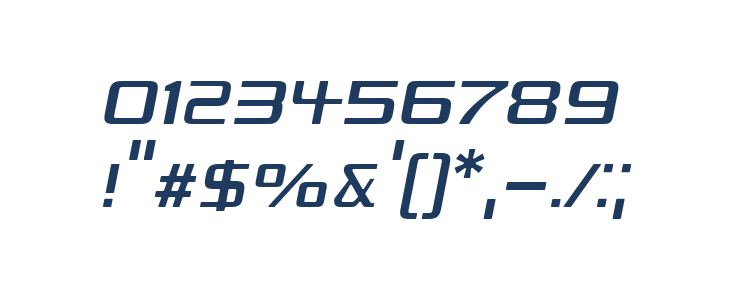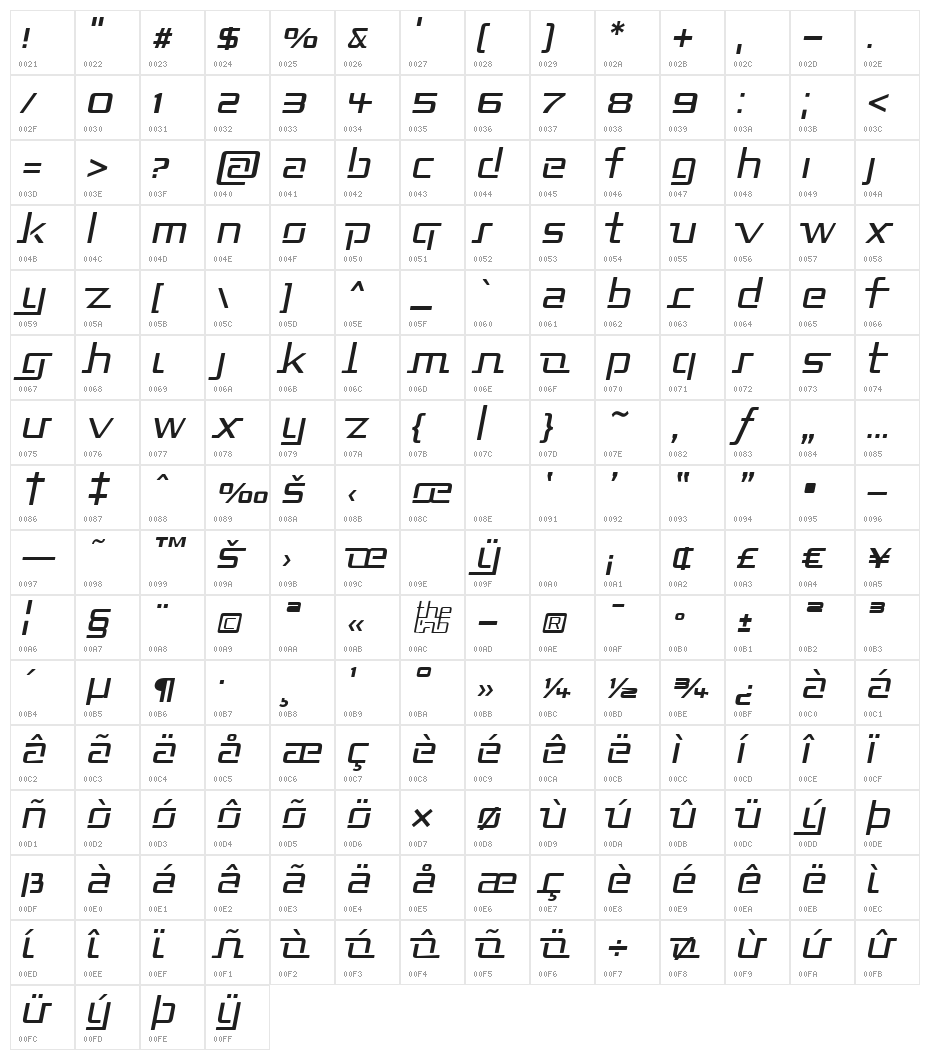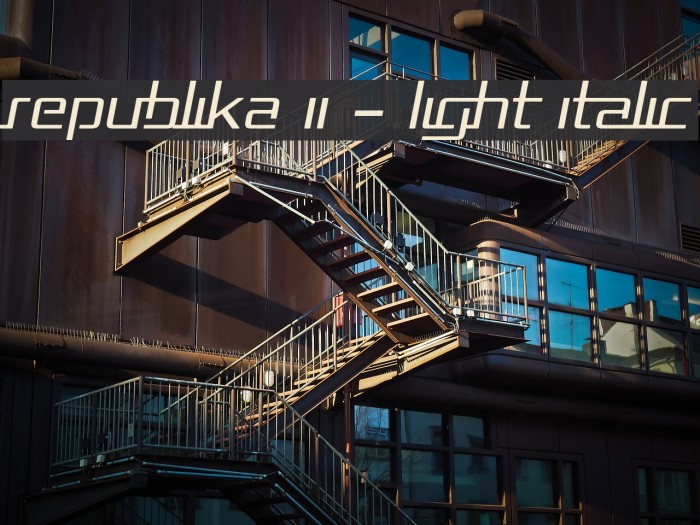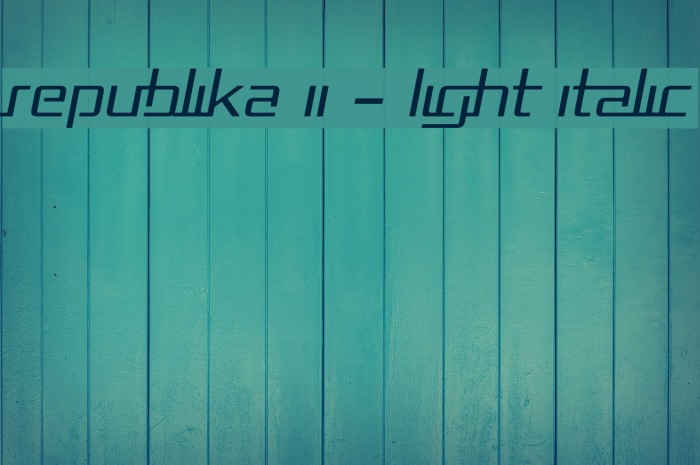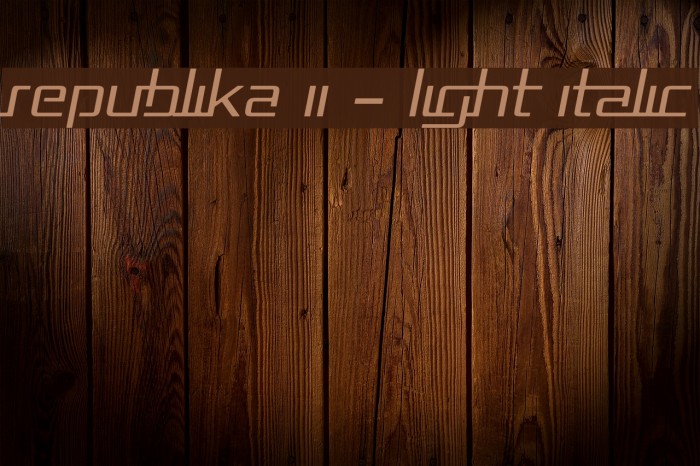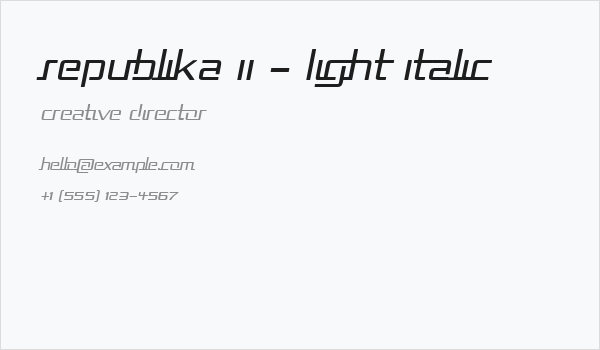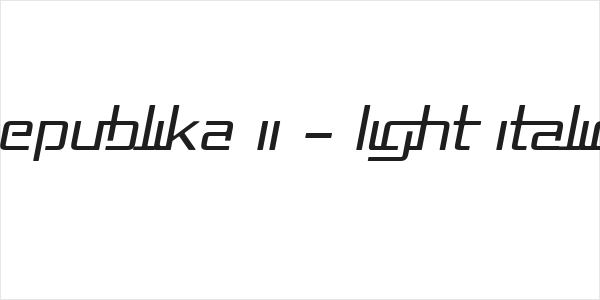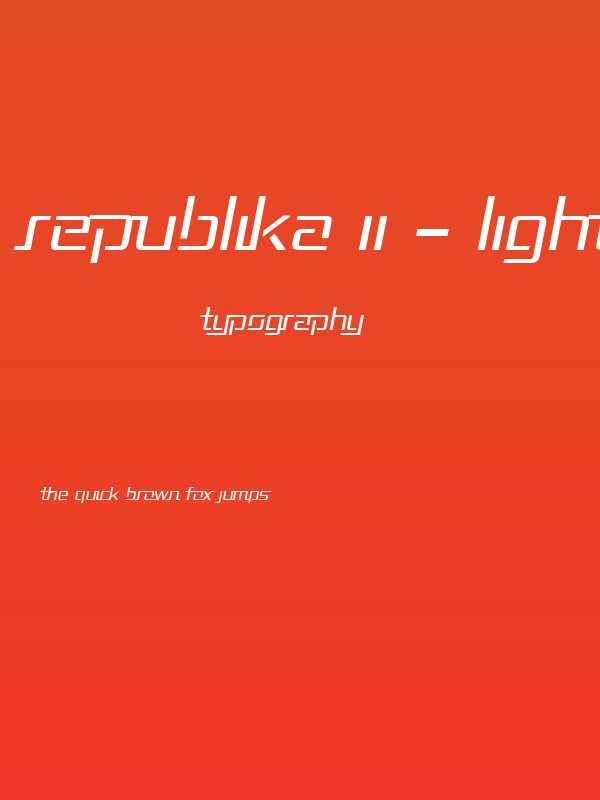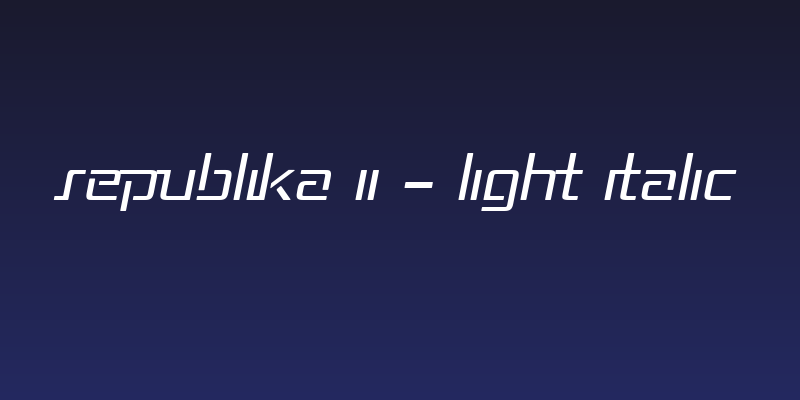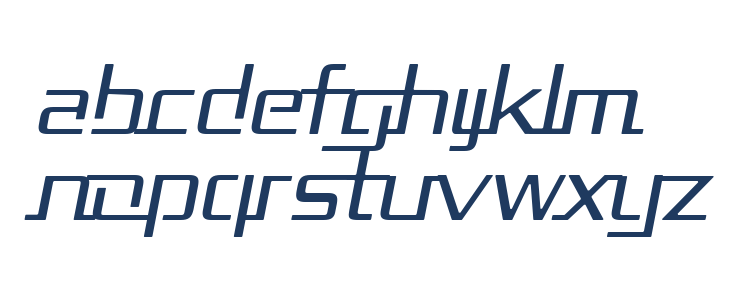
Republika II - Light Italic Font
Republika II - Light Italic Description
This font features a sleek, modern design with a distinct italic slant, giving it a dynamic and forward-moving appearance. The characters are crafted with precision, showcasing a geometric structure that is both clean and sophisticated. The strokes are consistent in weight, providing a uniform look across all characters. The font's angular edges and sharp corners contribute to its contemporary style, making it suitable for projects that require a futuristic or tech-oriented aesthetic. The spacing between characters is balanced, ensuring readability while maintaining a compact appearance.
| Use Case | Headlines, Logos, Digital interfaces |
| Proposed Projects | Ideal for tech branding, modern advertising, futuristic designs, and digital interfaces. |